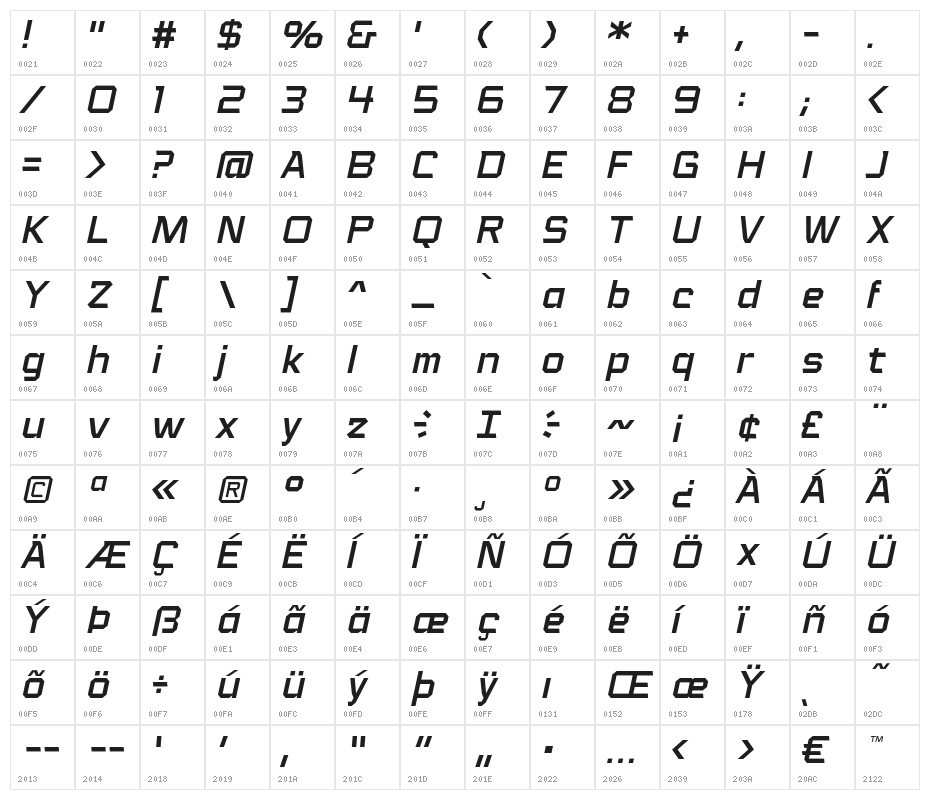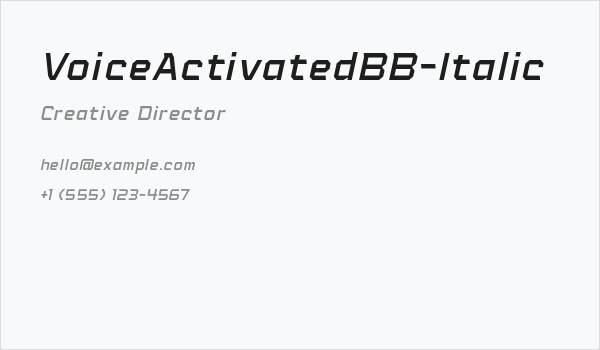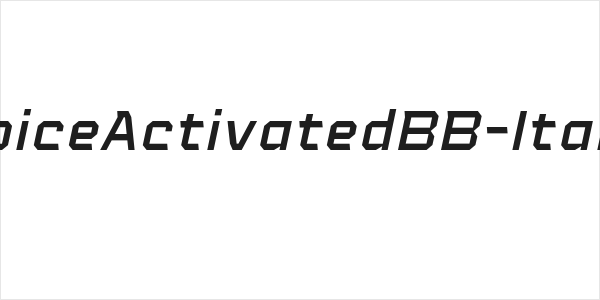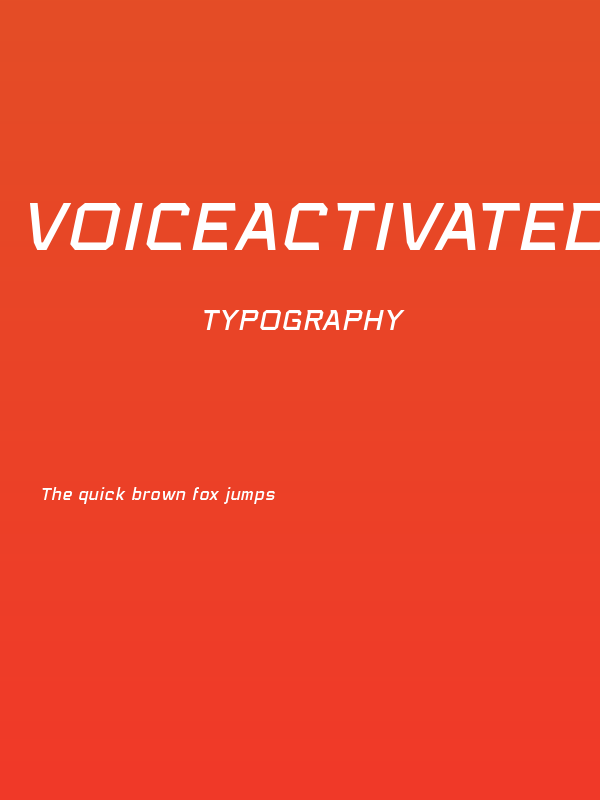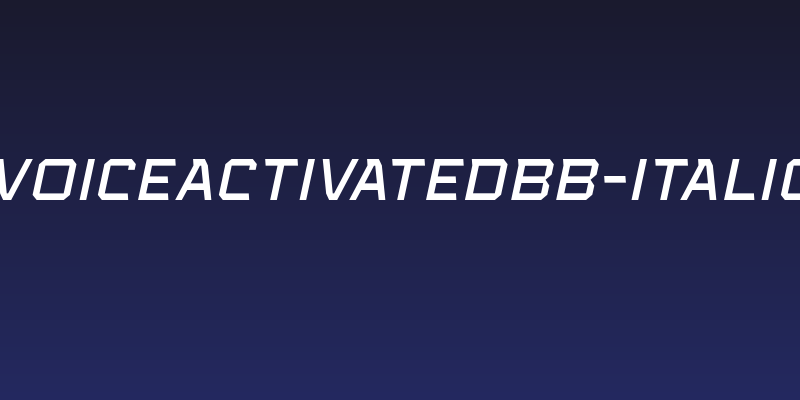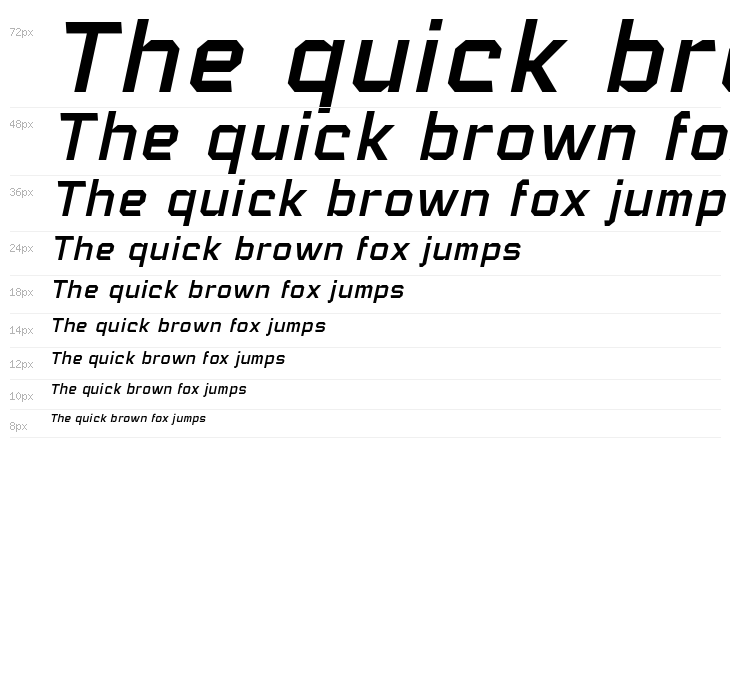
VoiceActivatedBB-Italic Font
VoiceActivatedBB-Italic Description
This font features a modern, angular design with a distinct italic slant, giving it a dynamic and forward-moving appearance. The characters are constructed with clean, sharp edges and a geometric structure, making it suitable for contemporary design projects. The uppercase and lowercase letters maintain a consistent style, with a slight variation in stroke width that adds a subtle contrast. The numerals and special characters follow the same design principles, ensuring uniformity across all glyphs. This font's unique style makes it ideal for projects that require a futuristic or tech-inspired aesthetic.
| Use Case | Headlines, Logos, Digital interfaces |
| Proposed Projects | Ideal for tech branding, modern advertising, futuristic posters, and digital interfaces. |